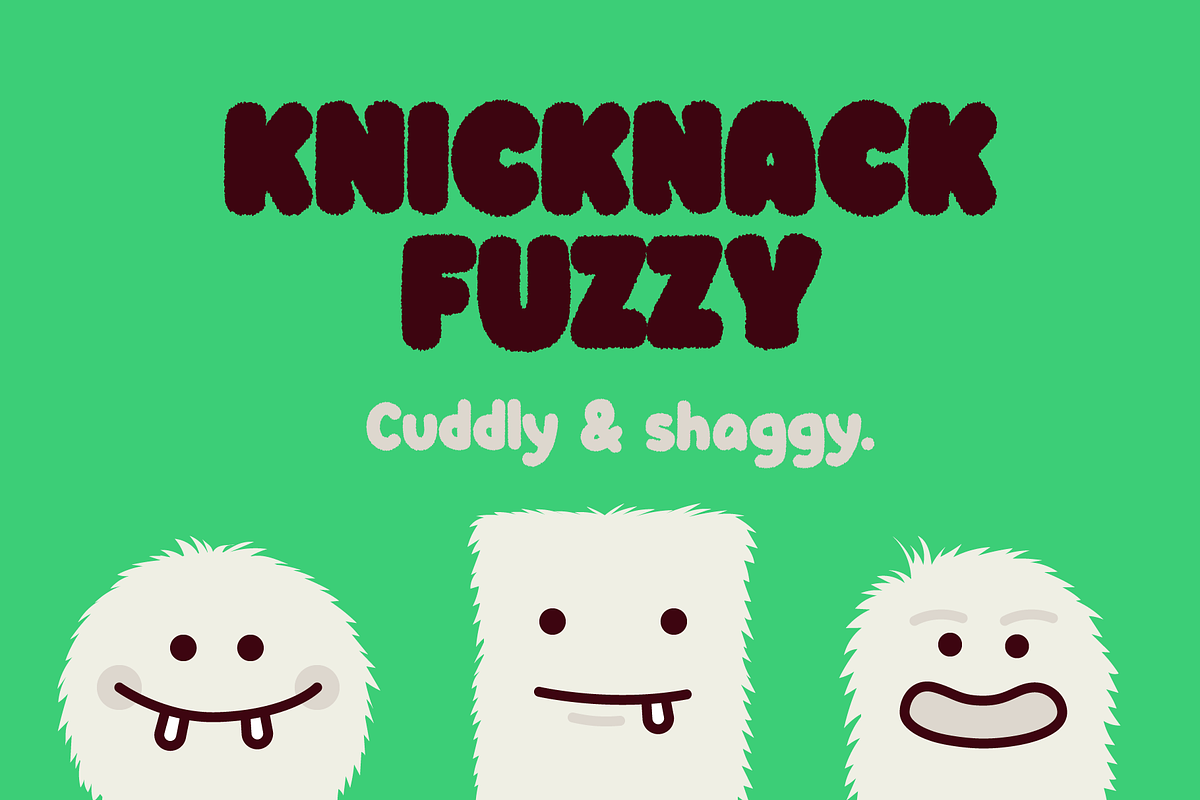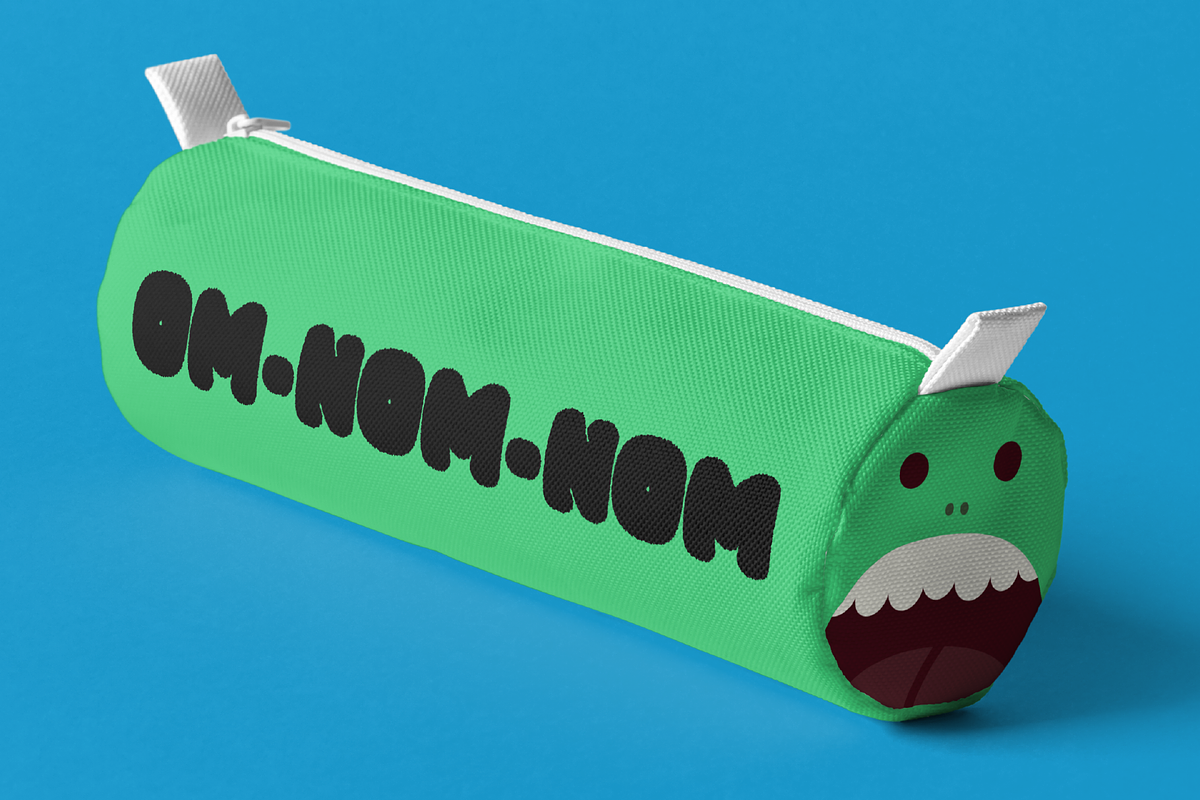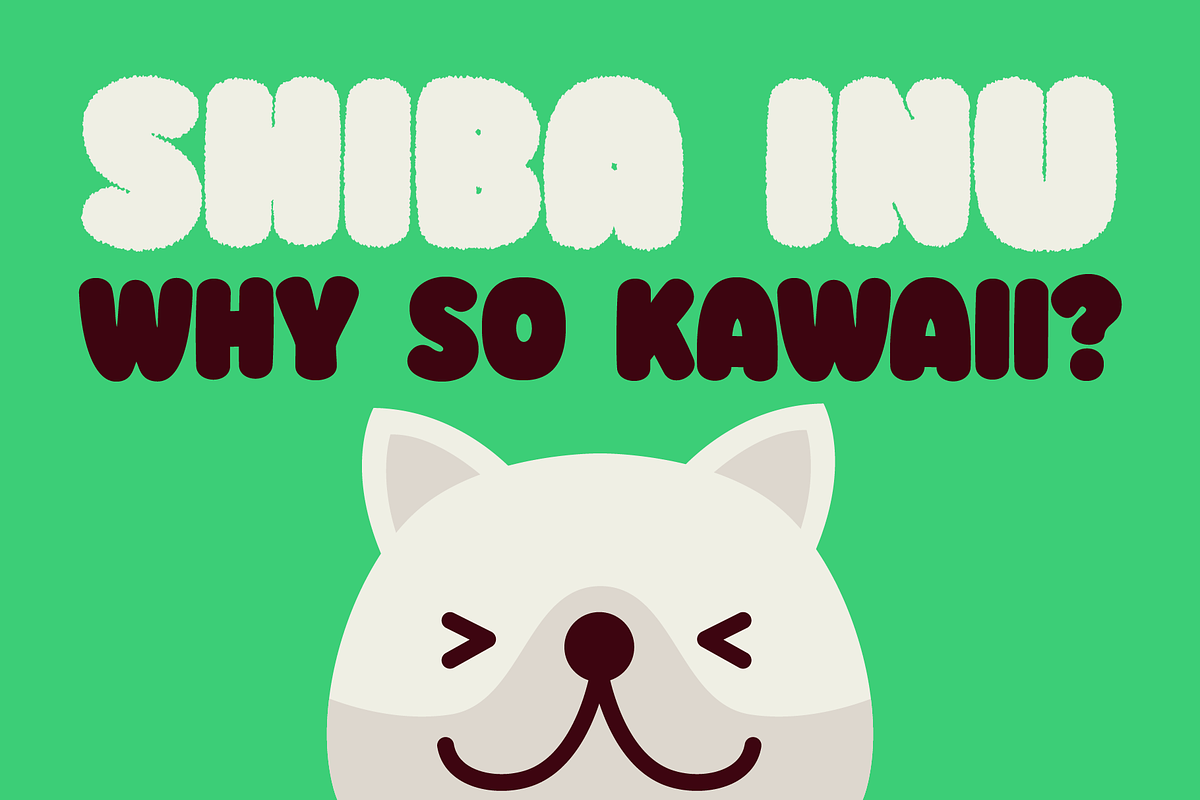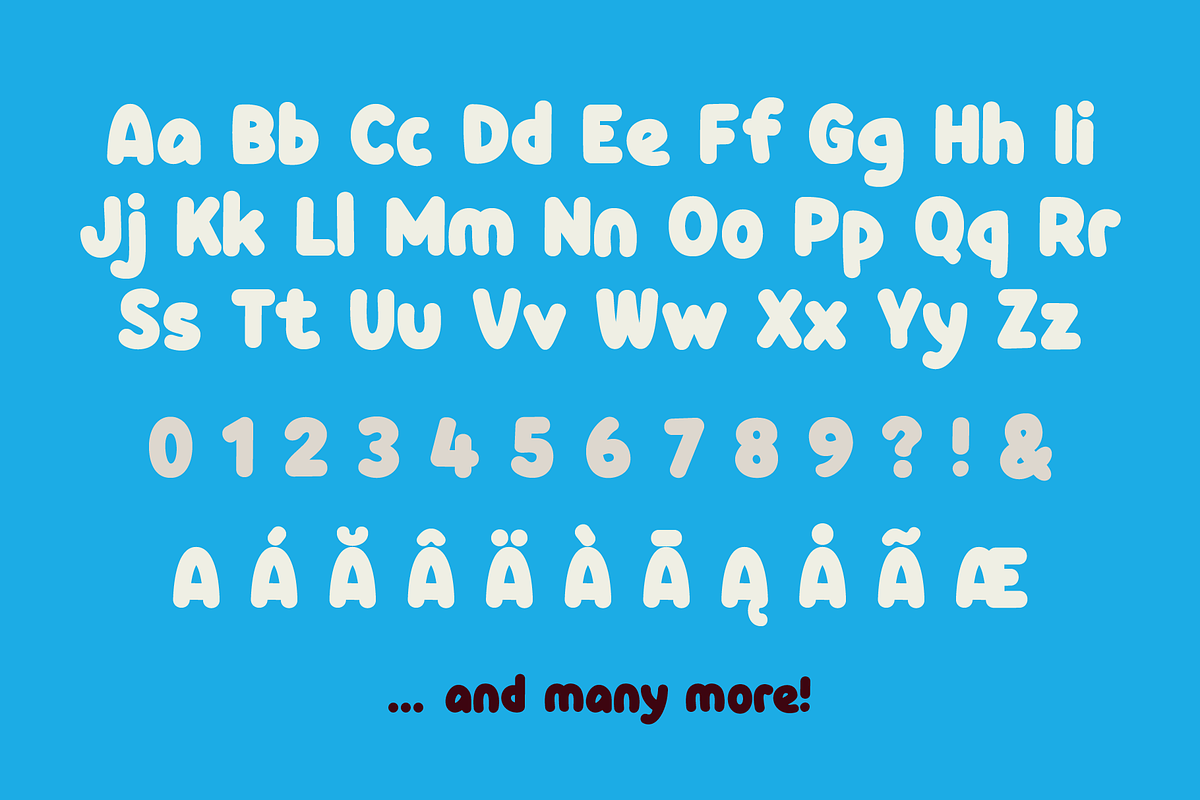
Knicknack - The lovable sans serif
It's here! Lumbering down the grassy slope towards us, the lovable round sans serif of KNICKNACK. It's warm, it's smooth, it's round and it's fuzzy.
KNICKNACK is a typeface that will put a smile on your face. It features 2 styles, regular and fuzzy and comes in at least 5 weights. At least?! Yes, at least. If you use the variable font file of KNICKNACK you can control the weight of the font with a slider. Works in Adobe Photoshop CC 2018 and Adobe Illustrator CC 2018.
KNICKNACK comes with 300+ glyphs and supports basic latin, Western European and Central European languages.